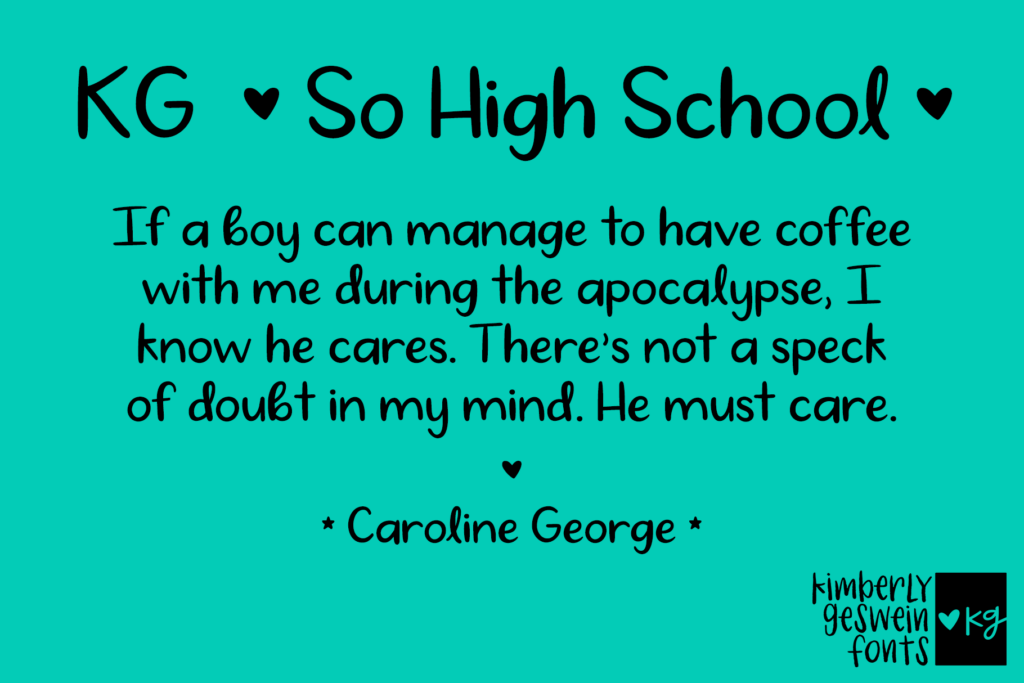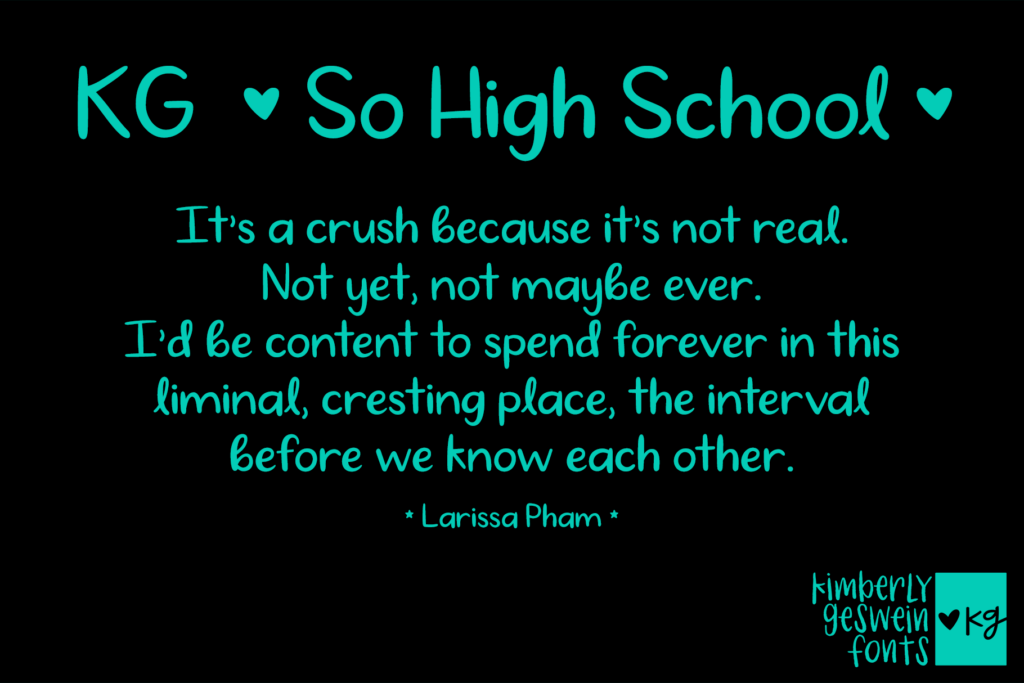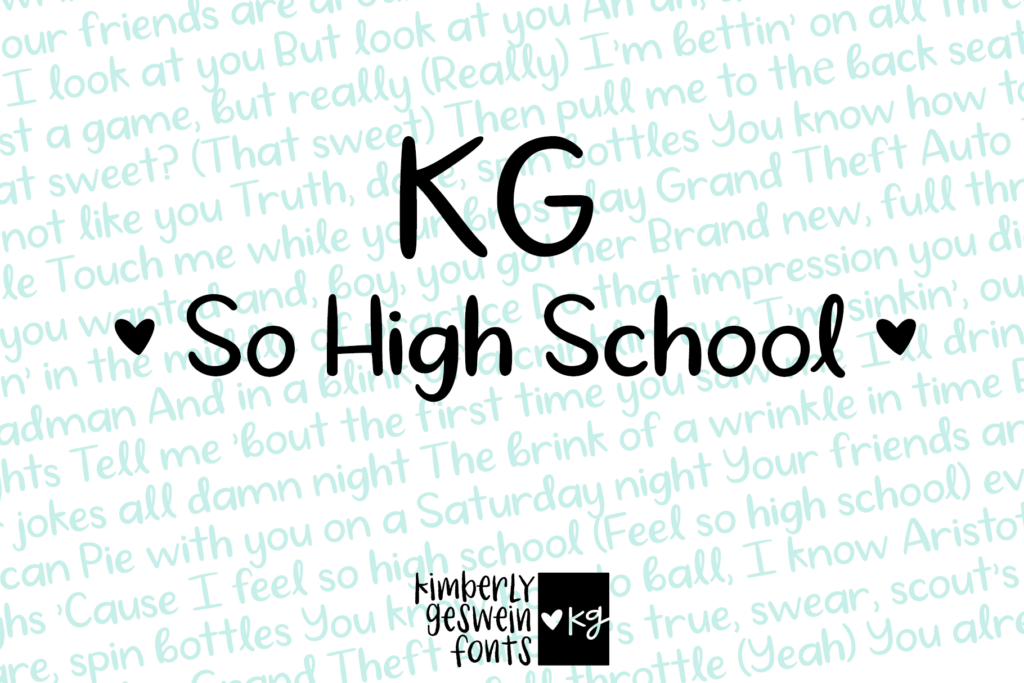
KG So High School
This fun and playful educator-friendly font was created with 2 versions- the one ending in EF is educator-friendly with more standard letter formation suitable for primary grade students or readers. I wanted to capture the whimsy and joy of a schoolgirl crush with the soft letter curves.